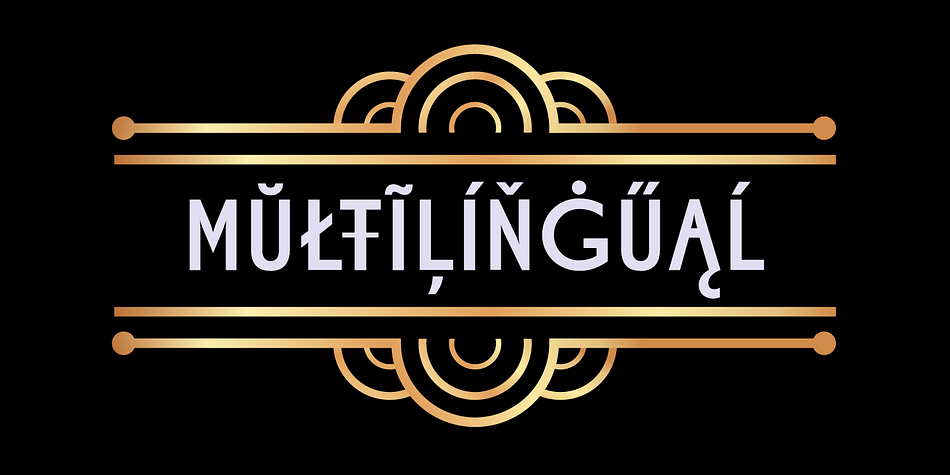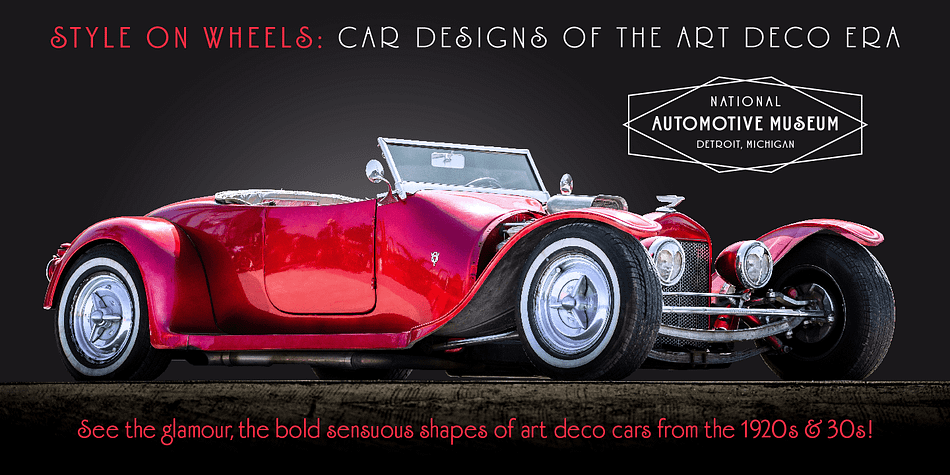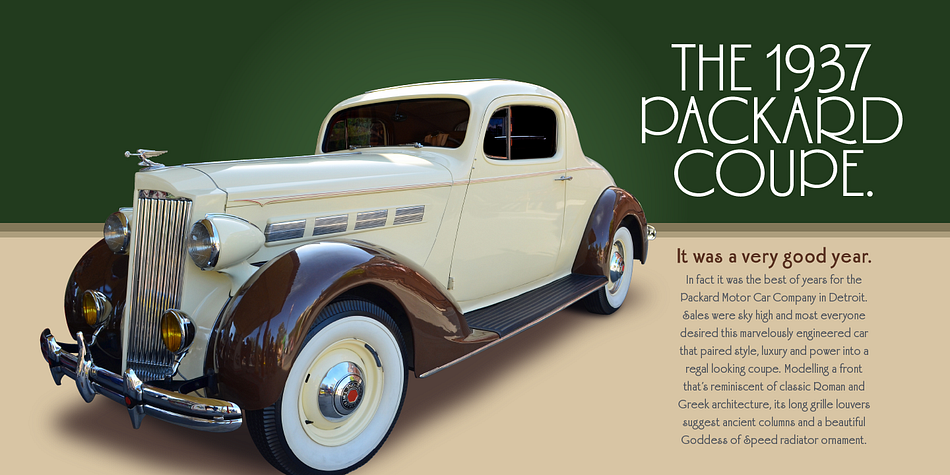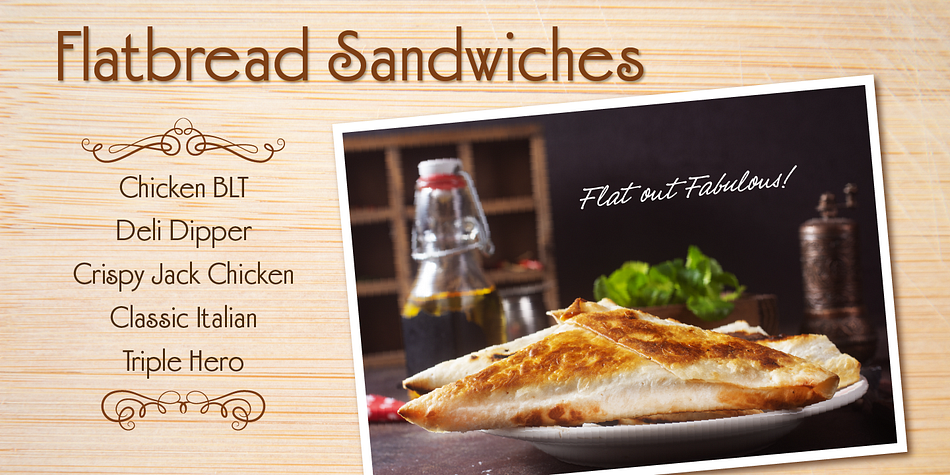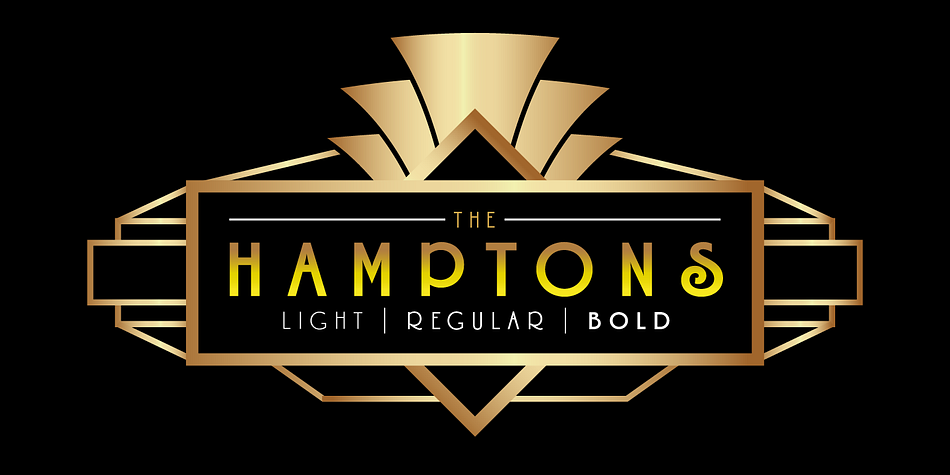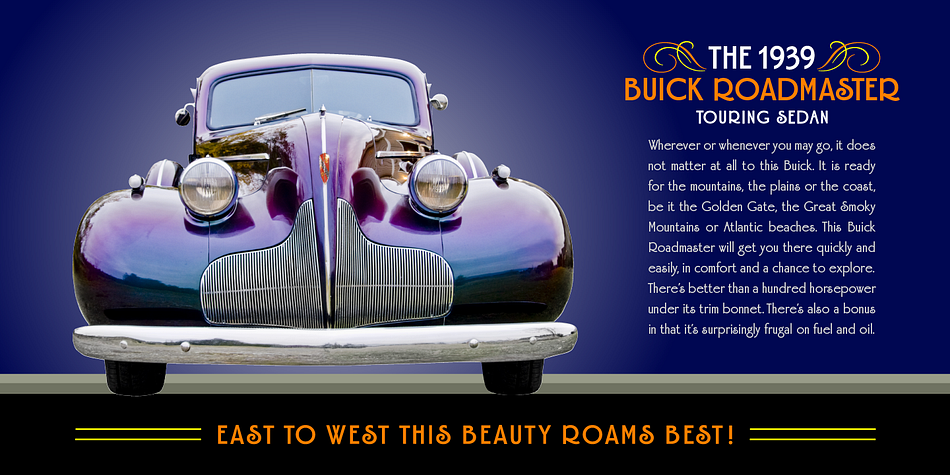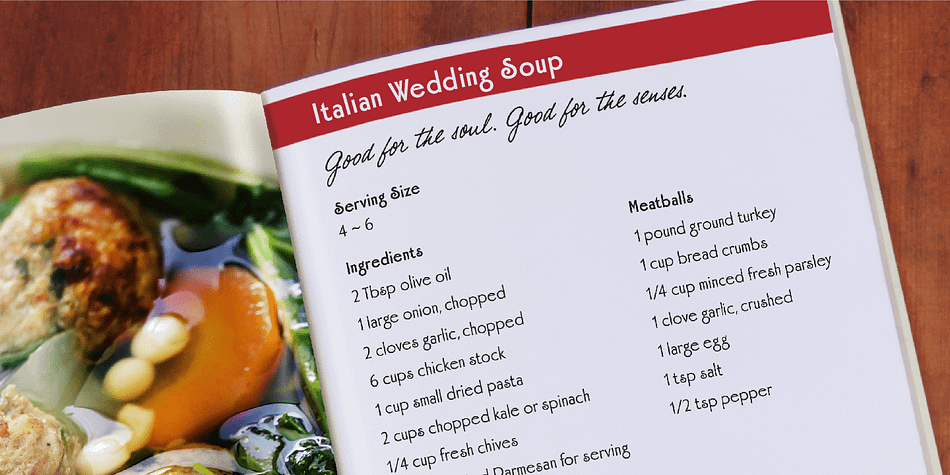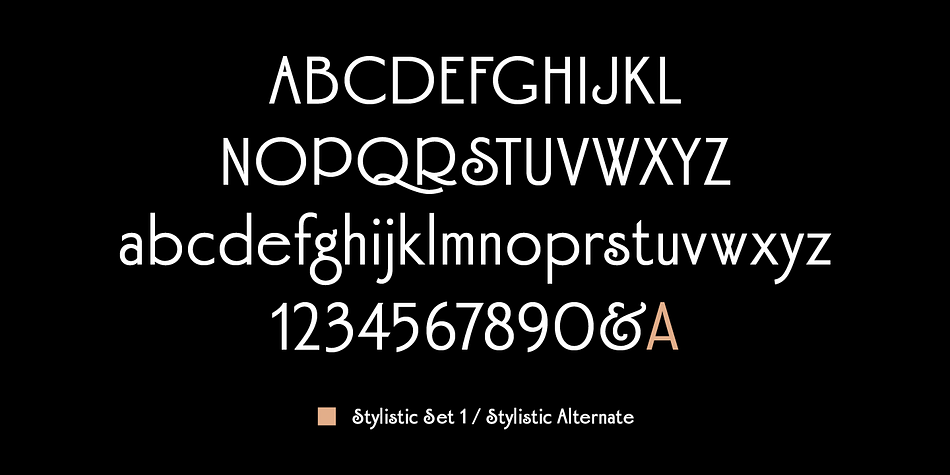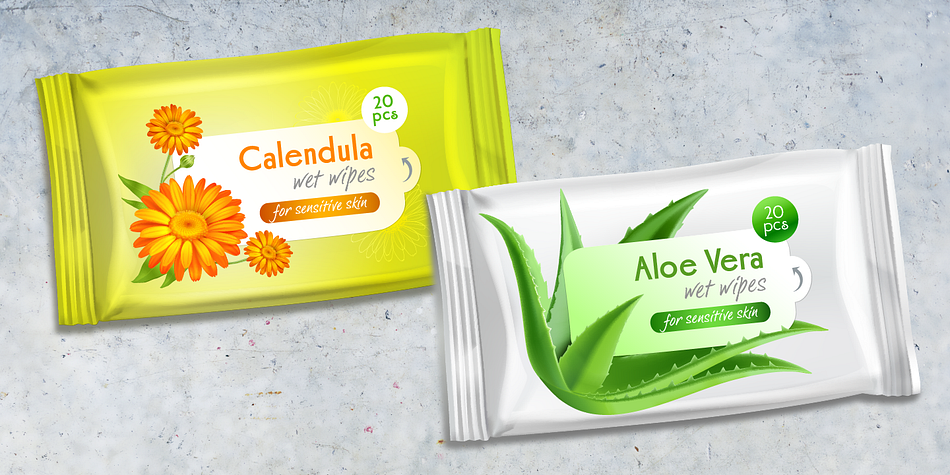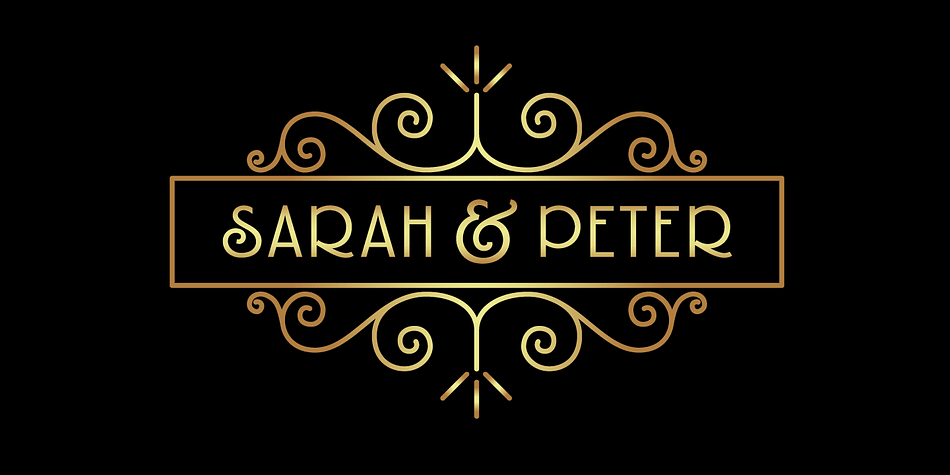
Designed by John Bomparte, Hamptons BF is an art deco font family. This typeface has three styles and was published by Bomparte’s Fonts.
Hamptons BF is a beautiful, elegant sans serif with dramatic individuality. A font that steps out in Art Deco style.
As a design movement Art Deco came into prominence during the 1920s and 30s when forms were typically sleek, symmetrical, geometric or highly stylized. Today the influence of this enduring style can be clearly seen in architecture, industrial design, fashion, art, graphic design, and yes, even type design.
Art Deco style exemplifies luxury, glamour and modernity. I believe Hamptons BF captures something of that retro look in a nod to the past without ever looking dated, all the while retaining a contemporary flair.
Named after the well-known New York resorts synonymous with style and elegance, this gothic or sans serif type is based upon University Roman, an early 1970s serif design which in turn was influenced by yet another serif design called Forum Flair (late 1960s); and that in turn owes its pedigree to the late 1930s’ Stunt Roman, which is the original source of inspiration for all of these. Quite a family tree!
There’s dynamic interplay between certain wide, full-round letters such as C, D, G, O, P, Q, R, S and narrow ones like A, E, F, H, K, L, M, N, U, etc. This contrast repeats throughout certain lower case letters and serves to create a unique look of distinction. Light and Regular weights communicate a romantic, feminine appeal while the Bold offers a complementary emphasis.
The font is somewhat versatile as in addition to its primary purpose for display, Hamptons BF also succeeds in settings containing short blocks of large text. It’s right at home in a variety of typographic environments: branding, packaging, signage logos, magazine headlines, invitations, menus, trendy cafes and more. Among the included OpenType features are Stylistic Alternates, Automatic Ligatures and Fractions. There is extended language support for Western, Central and Eastern Europe and Turkish.